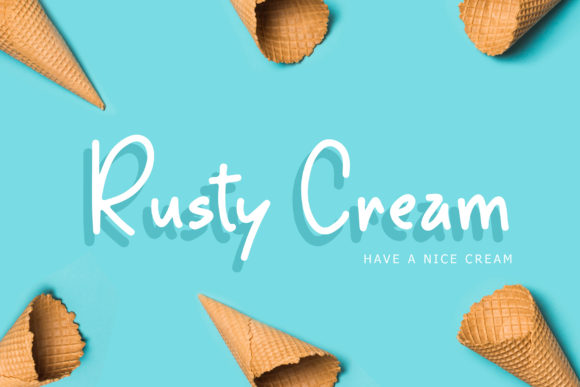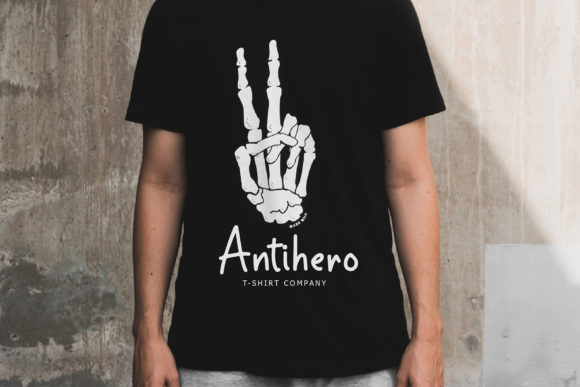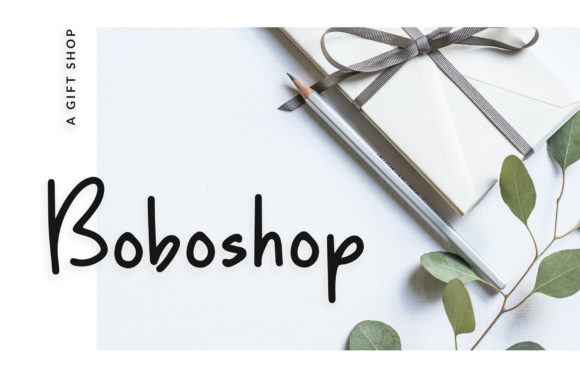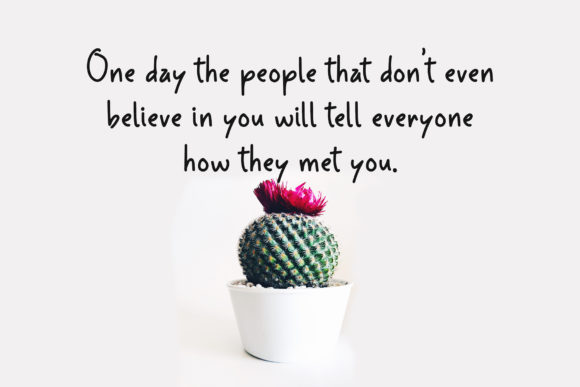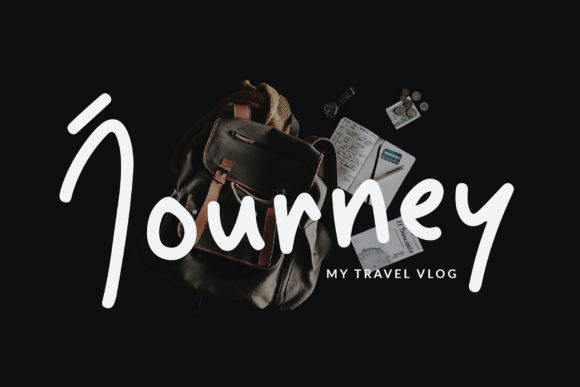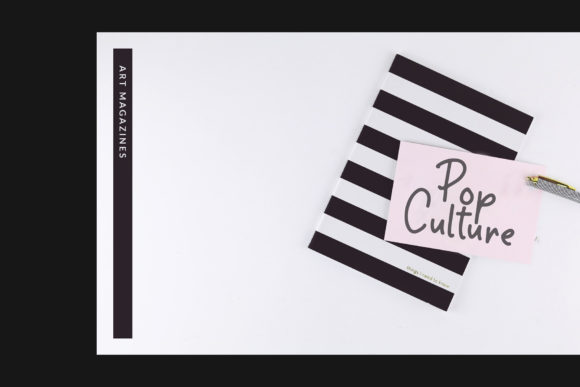
Introduction to Loyang Font
As a designer, there’s nothing quite like the thrill of landing on that perfect font to elevate a project from good to great. I recall the countless hours spent scrolling through font libraries, searching for that one special something that would bring my creative vision to life. And then, I stumbled upon the Loyang Font – an exquisite handwritten masterpiece that has since become my go-to design companion.
With its masterful blend of classic calligraphy and modern flair, the Loyang Font is the ultimate design resource for creatives looking to add a touch of sophistication and elegance to their projects. Whether you’re working on a free download or a high-quality print, this font is sure to deliver.
Key Features of Loyang Font
- Unique, intricate details and ornaments, perfect for adding an extra layer of depth to designs.
Honest Review: Loyang Font
I recently came across the Loyang Font while searching for high-quality design resources for a creative project. As a designer, I’m always on the lookout for unique fonts that can elevate my work, and I was excited to give Loyang Font a try.
- ✨ What works well: The Loyang Font has a beautiful, hand-drawn aesthetic that adds a touch of personality to any design. The font is also highly customizable, making it perfect for creative projects.
- ✨ The font is available in various weights and styles, giving designers a range of options to choose from.
However, I did encounter some limitations with the Loyang Font. ⚠️ The font is not compatible with all operating systems, which can be a drawback for designers who work on multiple platforms.
Overall, I’m impressed with the Loyang Font and would definitely recommend it to designers looking for a unique and high-quality font for their creative projects. With its free download option and transparent background feature, it’s a valuable resource that can take designs to the next level.
To get the most out of the Loyang Font, experiment with different font sizes, colors, and styles to create unique and eye-catching designs. You can also use the font in combination with other design resources to create a cohesive look.
The Loyang Font is ideal for a wide range of creative projects, including social media graphics, presentations, logos, and graphics. It’s also a great resource for designers and non-designers alike who want to add a touch of professionalism to their designs.